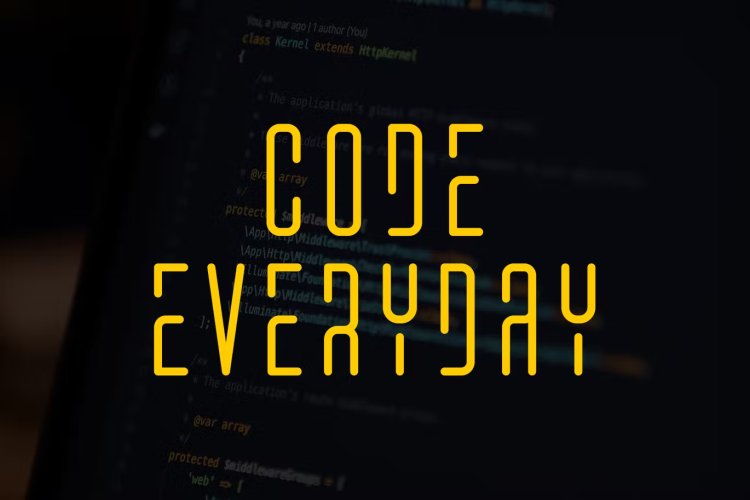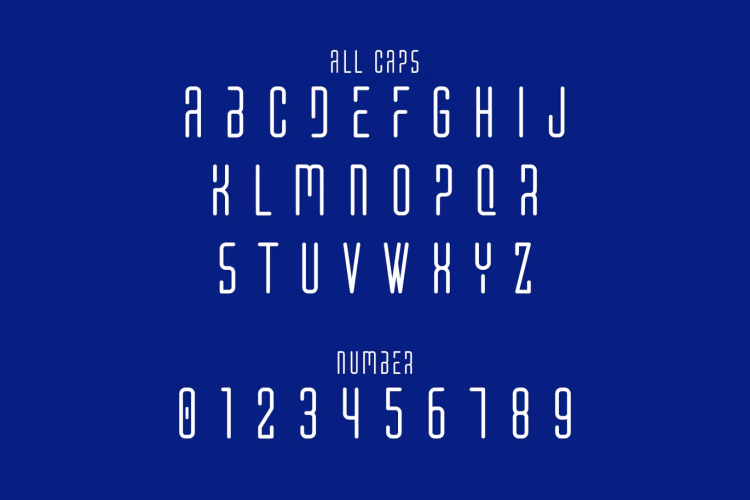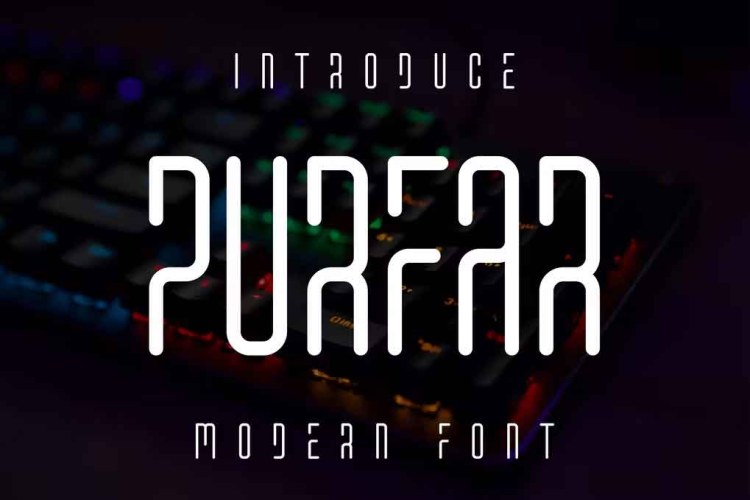
Purfar Font
Purfar Font Perfectly suited on print/screen. it’s perfect for Branding, name card, poster, logo, magazine, cover, banner, tshirt and headers, or even large-scale artwork.
Where Purfar Font works best
Purfar Font keeps its shape at 14 and 16 pixels, which is where interface text actually lives. Numbers and capitals stay distinguishable in tables.
Presentations are read at a distance; a clean sans with a strong bold is the safest hierarchy you can build in a hurry.
Simple letterforms survive angles, glare and movement, so Purfar Font suits door signs, menus boards and exhibition panels.
What kind of work does Purfar Font suit?
It sits in the Sans Serif Fonts group and reads as branding, professional, sans serif, sans serif fonts. That makes it a candidate wherever those qualities help: headings, packaging, social graphics and brand work. Set it at the size you plan to use before deciding.